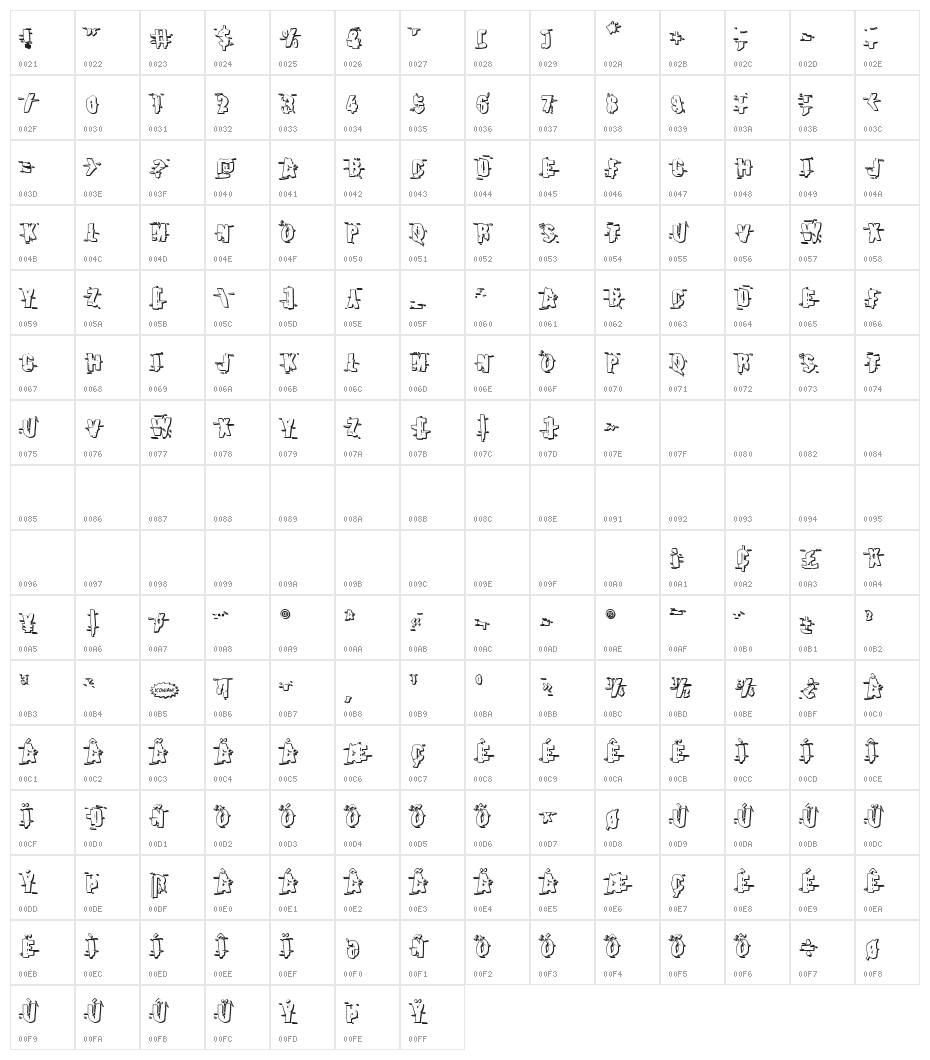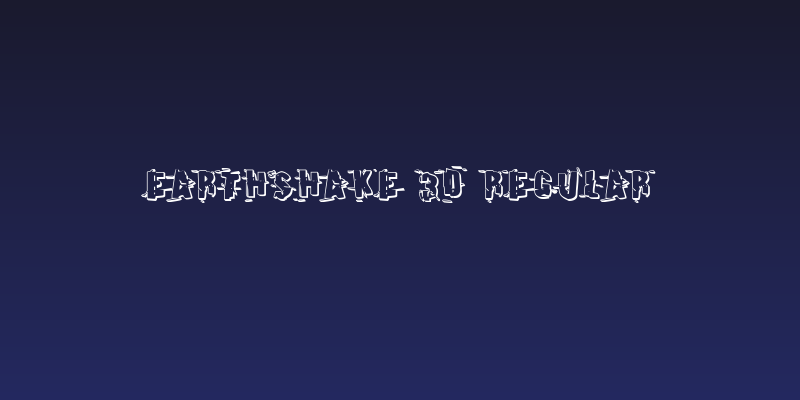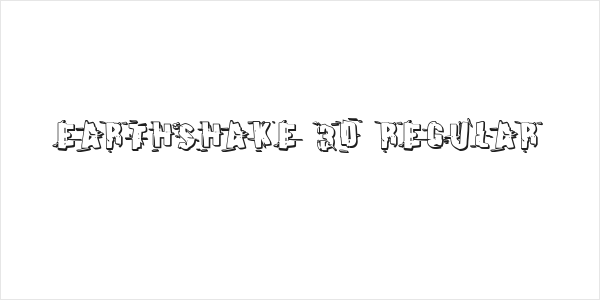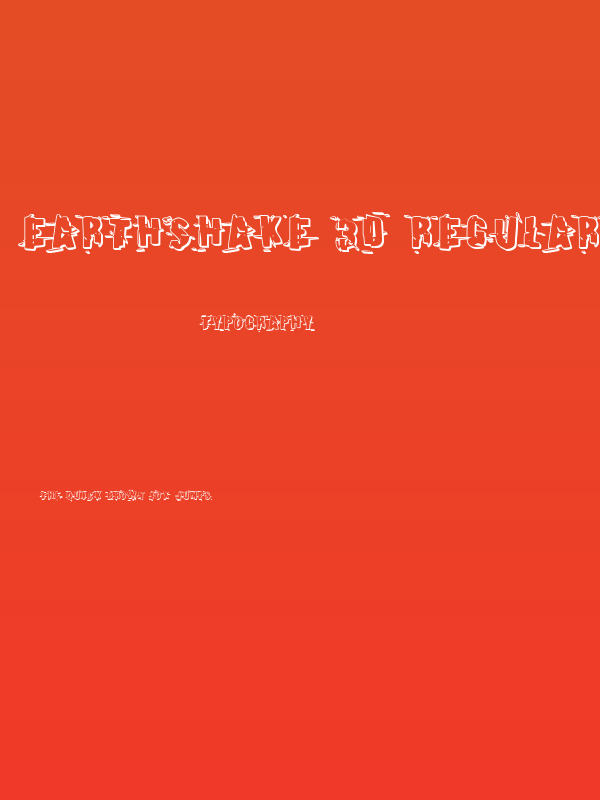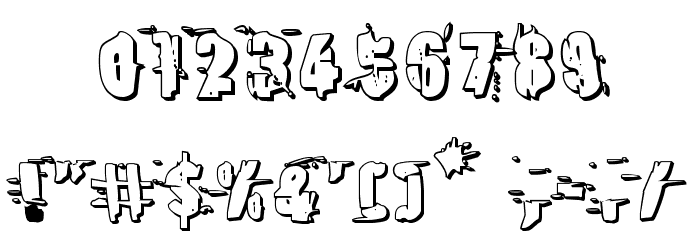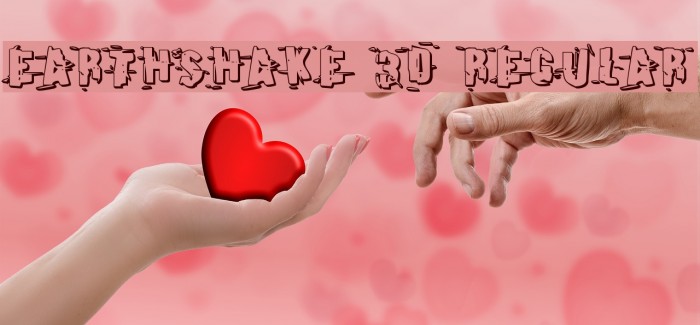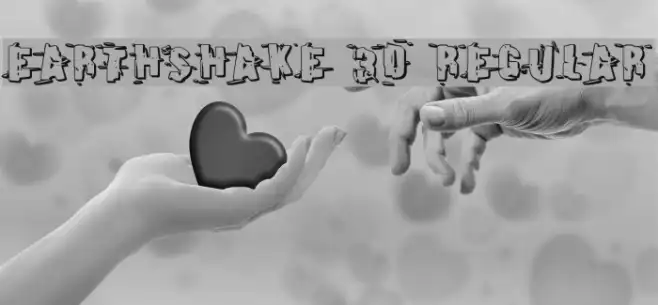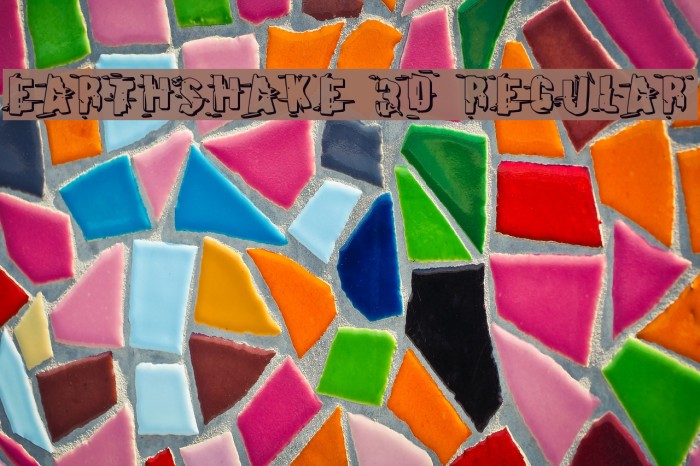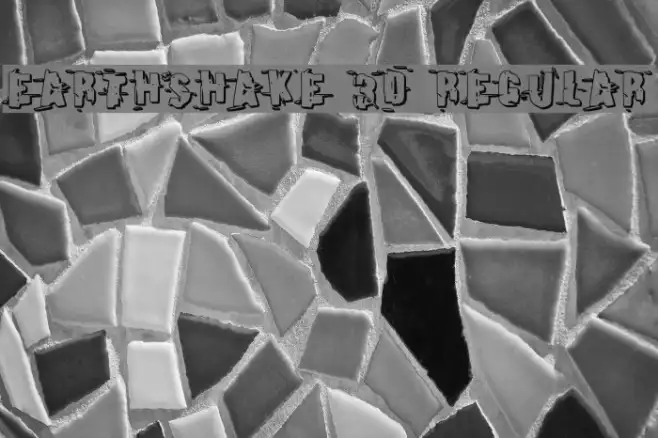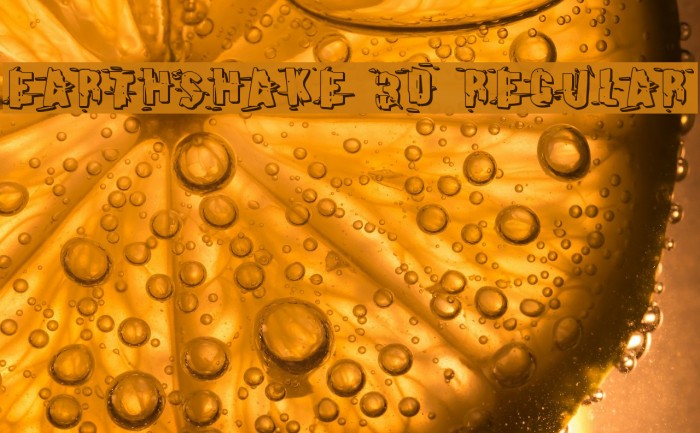
Earthshake 3D Regular Font
Earthshake 3D Regular Description
This font features a bold, three-dimensional style with a rugged, distressed appearance. Each character appears as if it has been carved out of stone, with rough edges and a shadow effect that gives it depth. The design incorporates irregular outlines and scattered debris-like elements around the letters, enhancing its chaotic and dynamic feel. This font is highly decorative, making it ideal for projects that require a strong visual impact. The uppercase and lowercase letters maintain a consistent style, while the numbers and special characters follow the same design principles, ensuring a cohesive look across all text elements.
| Proposed Projects | Ideal for posters, video game titles, adventure-themed graphics, and any project needing a bold, eye-catching typeface. |